Latest awesome free fonts handpicked from various places to this great post. Collection based on clean and elegant script fonts, sans-serif fonts, brush fonts and modern creative fonts for logo design, branding projects, apparel, business cards, Web UI, packaging, advertising, book cover design, social media posts and blogs, e-commerce and any type of print or web invitations and many others print designs.
Here are 23 latest free fonts perfect for web / graphic designers special made for your creative designs. The following typefaces and fonts are ideal to make an attractive design and fit for any artwork. Enjoy!
Suprema Free Fonts
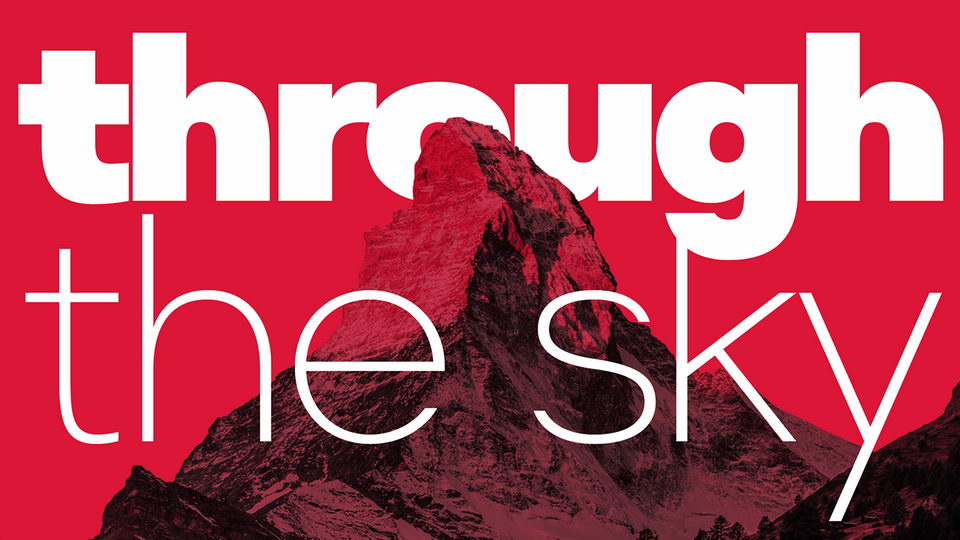
Lurix Free Font
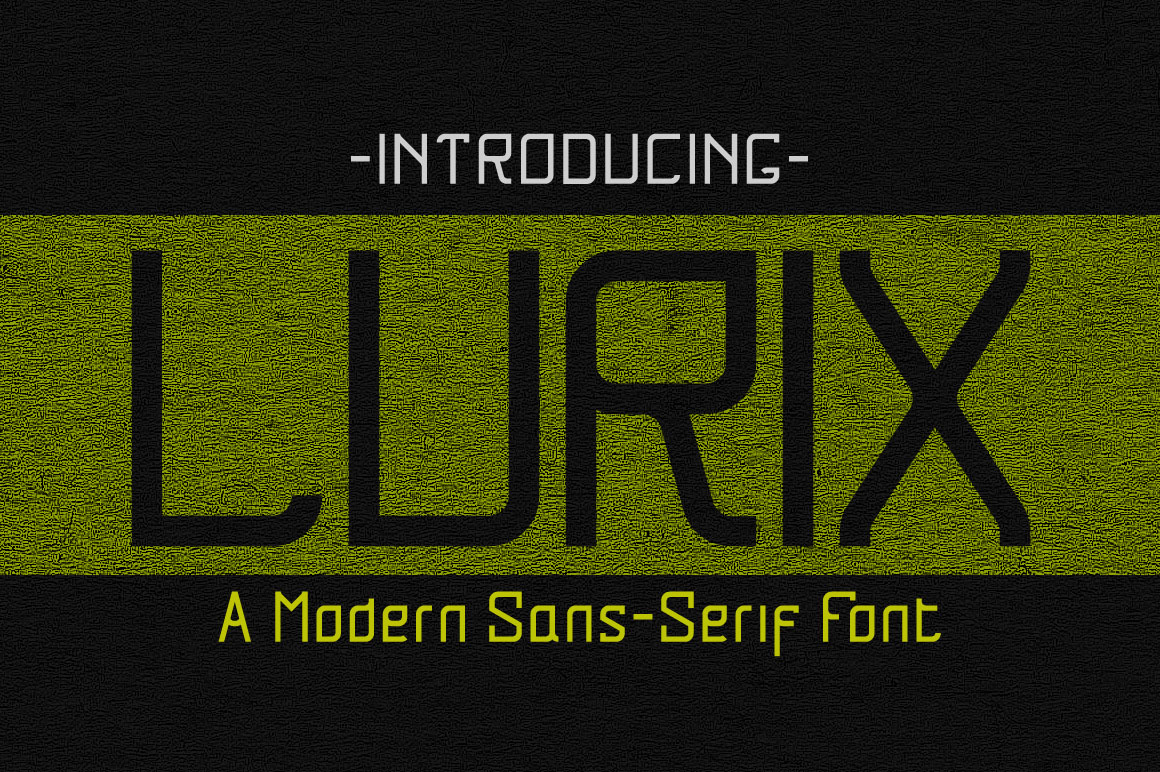
Anson Free Typeface
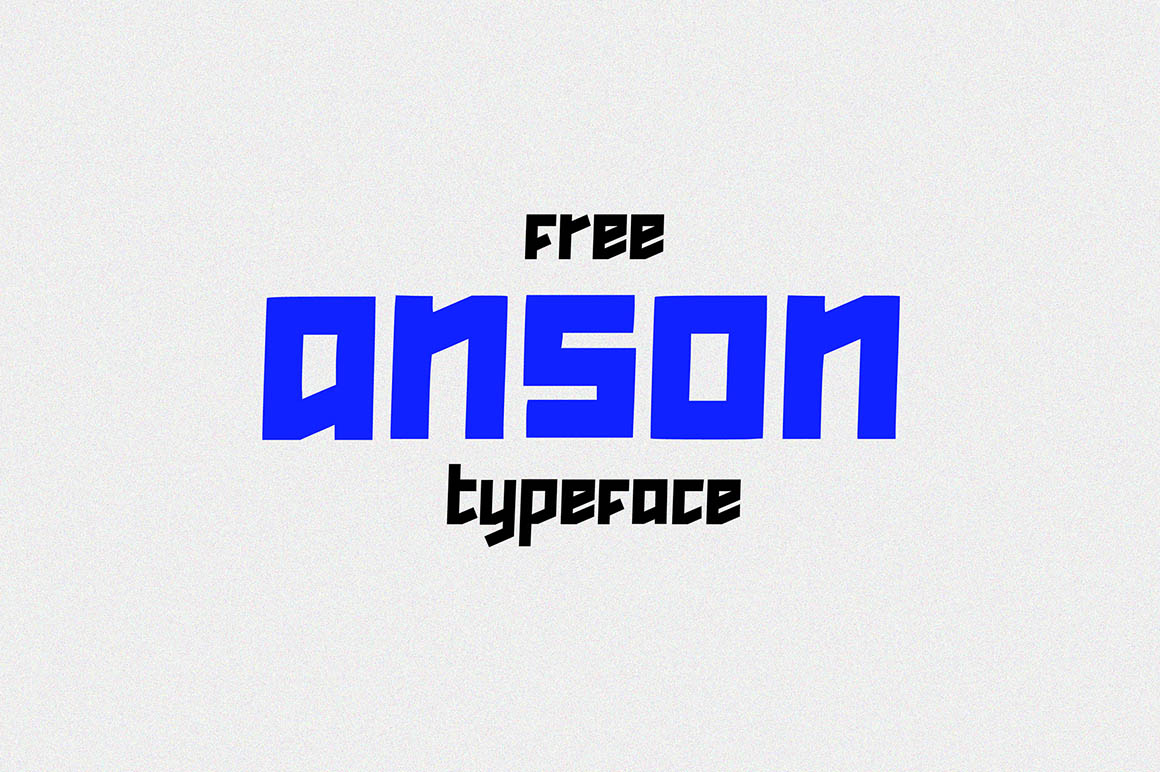
Crafto Free Font
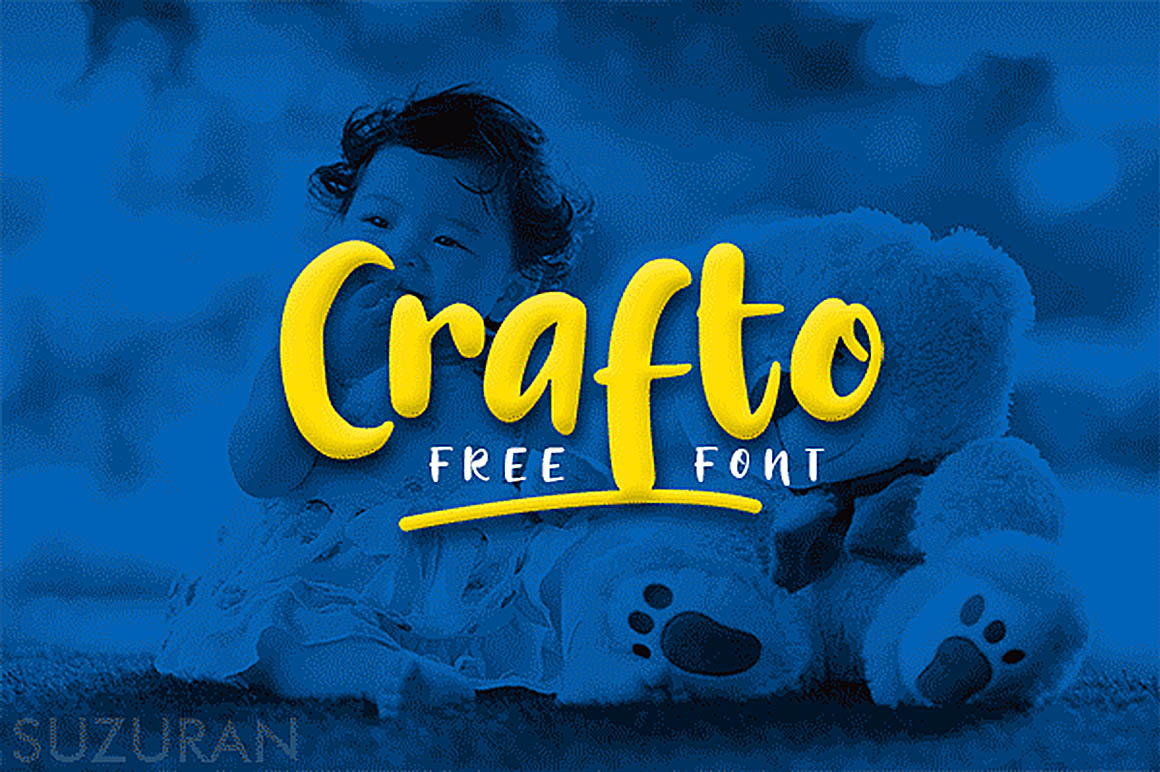
The Armory Free Font
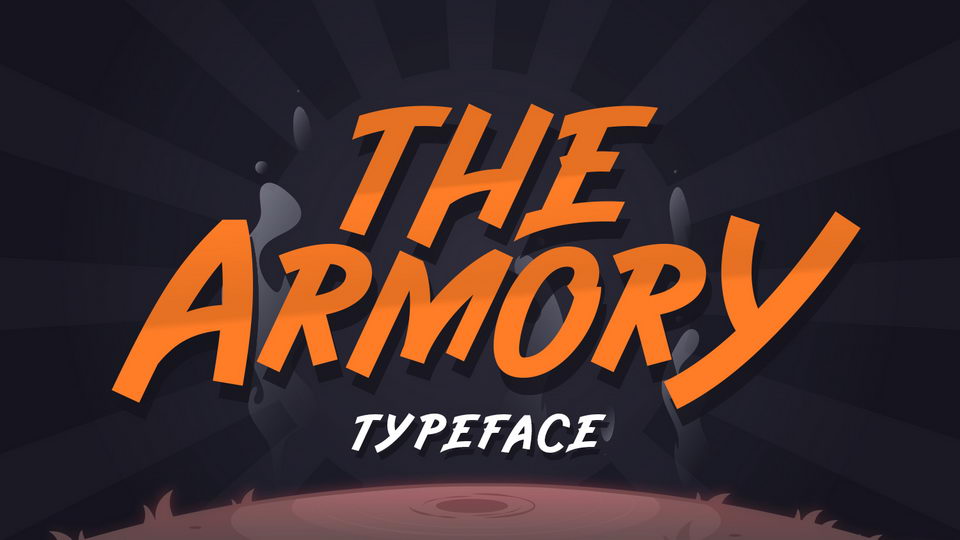
Barbari Free Font
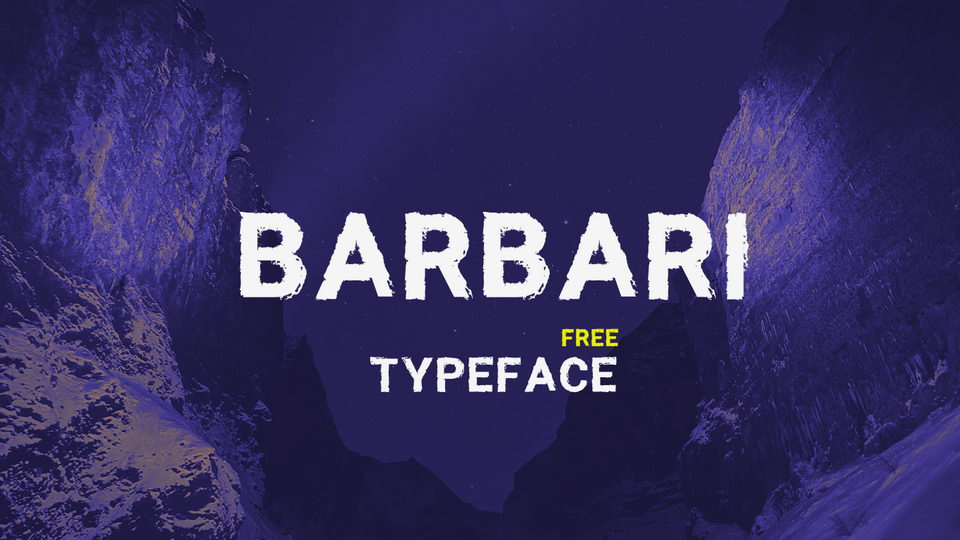
Rommantis Free Font
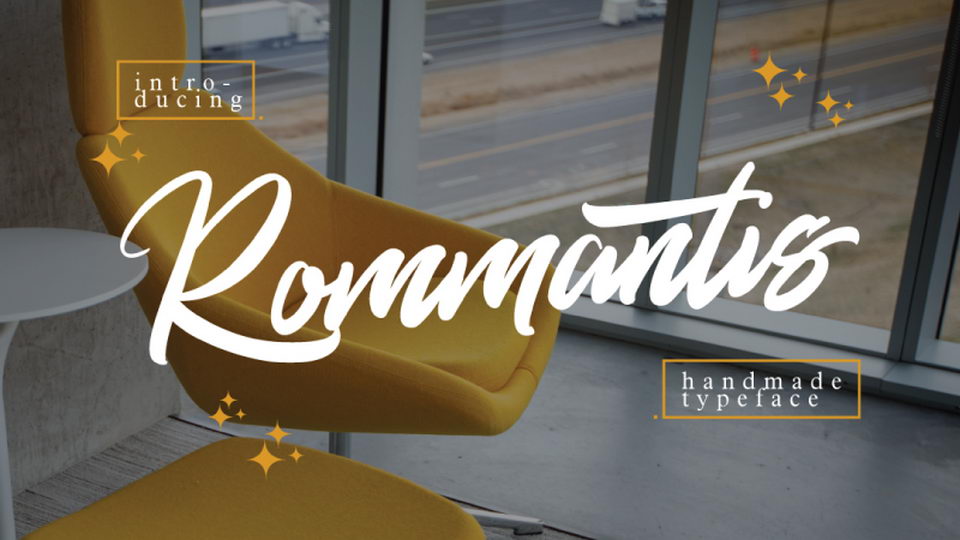
Santio – Free Font Family
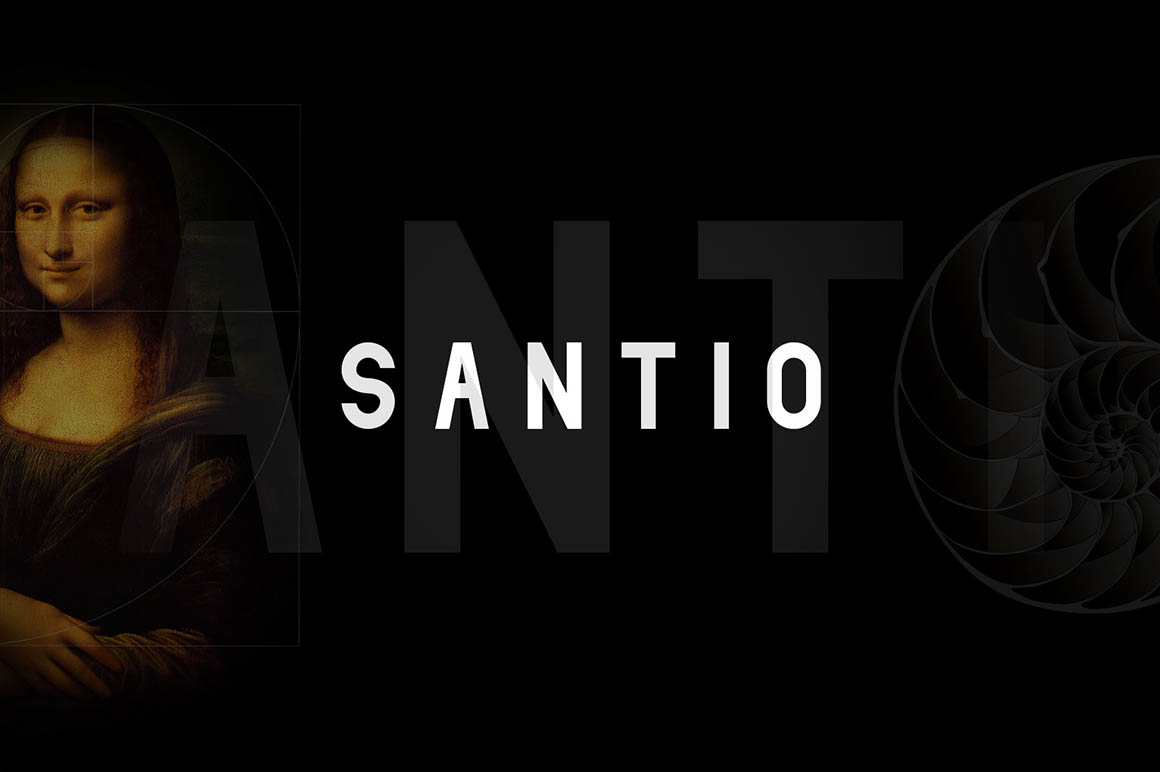
Old Man – Vintage Font
Yeager | Free Display Typeface – 3 Weights
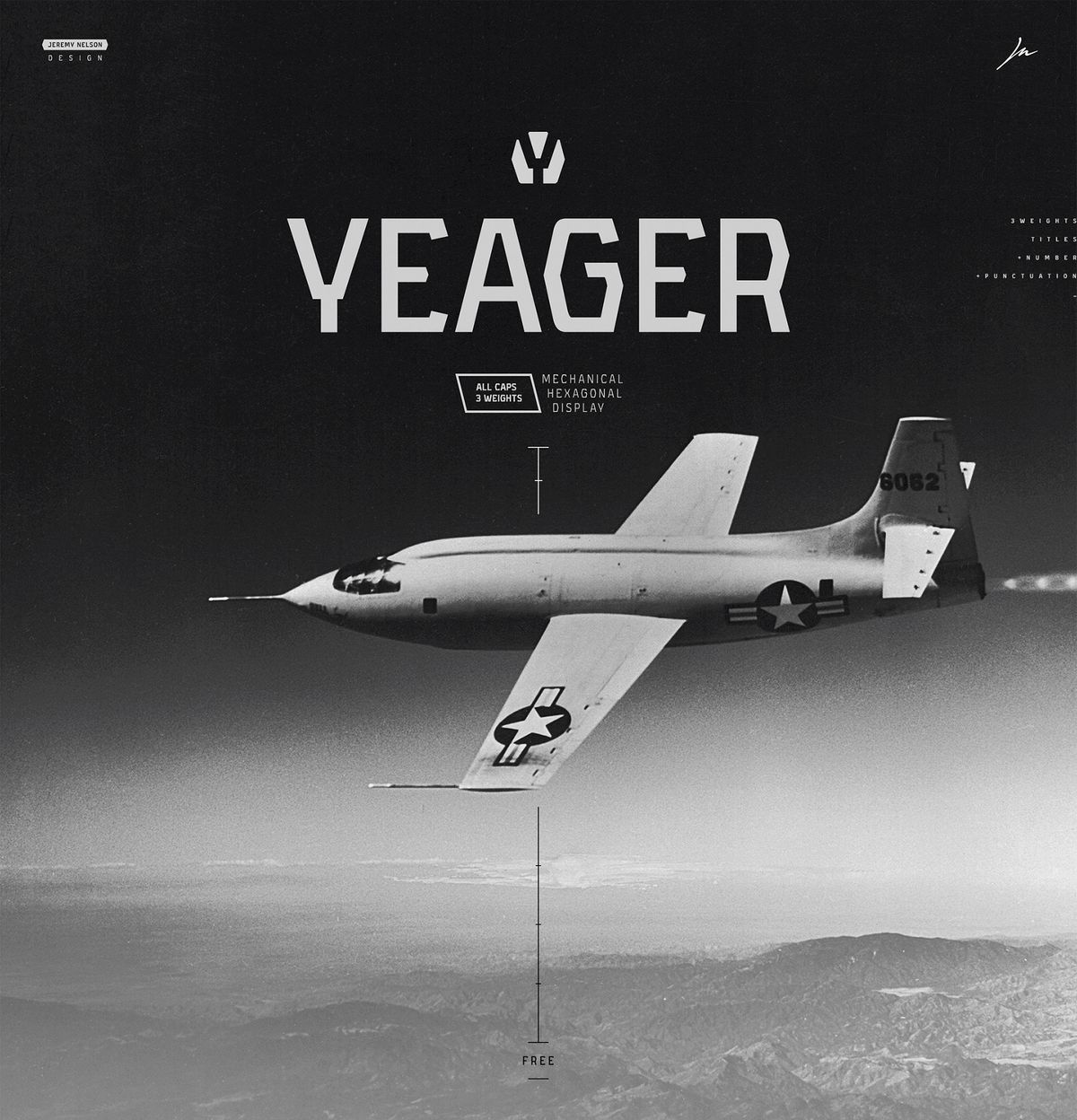
Epistle Free Font
Bio Monster – Free Font
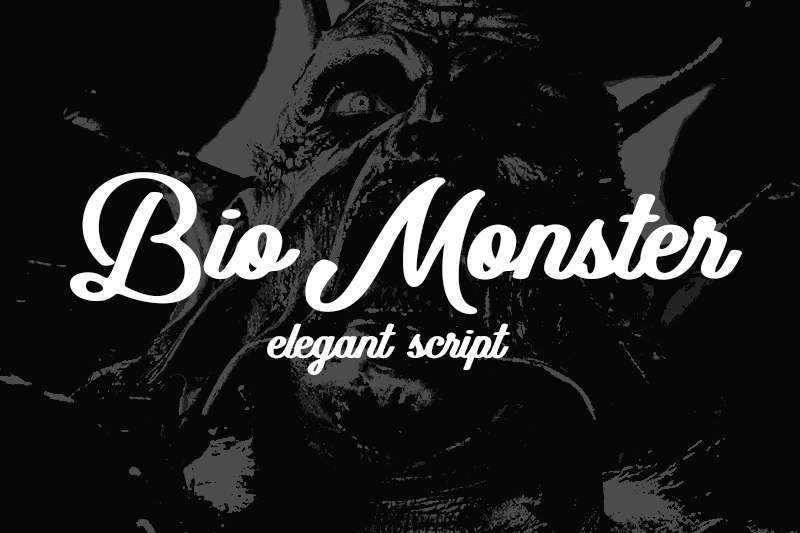
Under Stock – Free Vintage Serif Font
Steelfish – Free Font
Searocks Clean Condensed Font
Slatana Free Font
Serico – Free Font
Poppy Flowers – Free Decorative Sans Serif Font
Arkipelago Brush Script – Free Font
Finland – Thin Free Font
Breite – Free Typeface
Autolova Free Font
Stella Wilson – Free Font